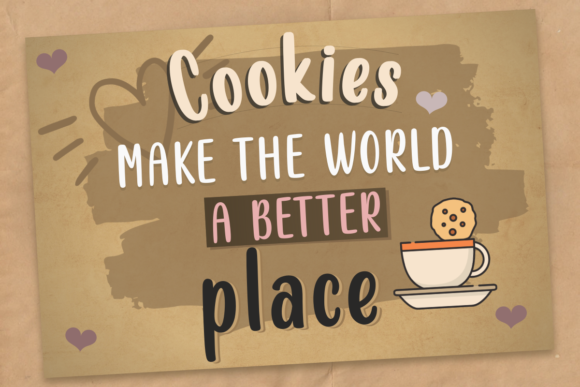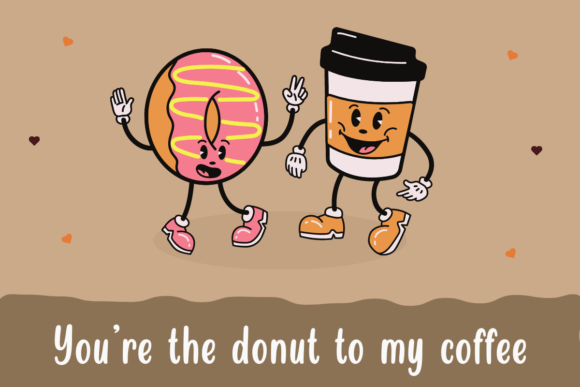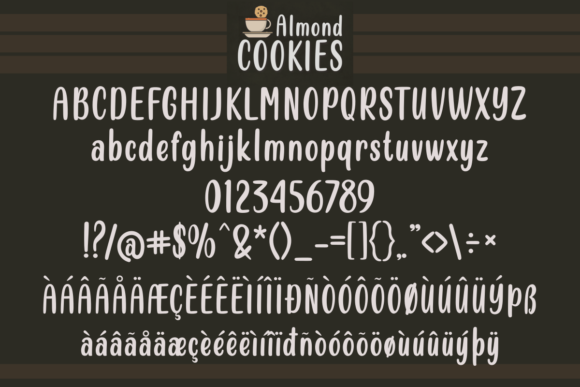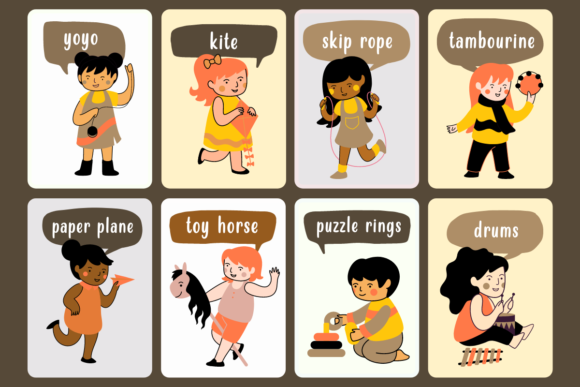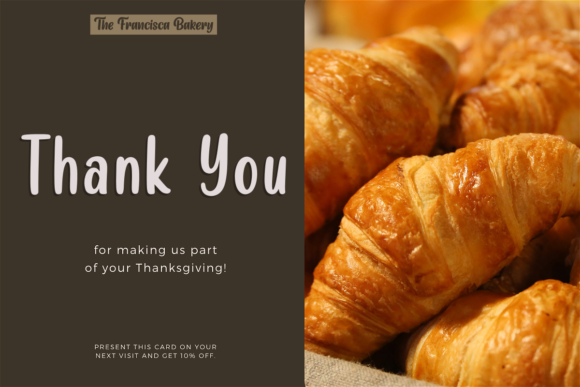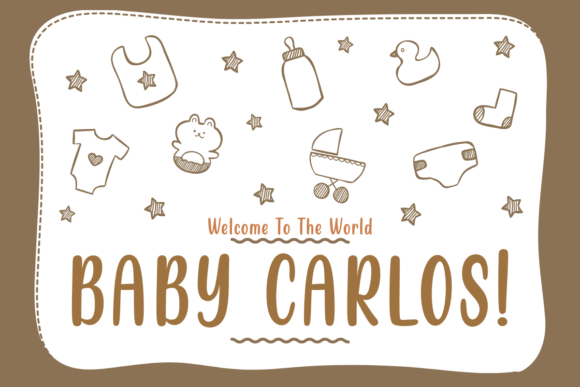
Introducing Almond Cookies Font: The Perfect Choice for Fun and Creative Projects
Are you looking for a font that embodies playfulness and authenticity? Look no further than Almond Cookies Font! This cute and colorful display font is perfect for any children’s activity or school project that requires a fun and creative touch. In this article, we’ll take a closer look at Almond Cookies Font, its features, and how you can use it to add a personal touch to your designs.
What is Almond Cookies Font?
Almond Cookies Font is a display font designed to bring a smile to your face. Its playful and colorful design makes it perfect for use in children’s books, school projects, and any other creative endeavor that requires a fun and youthful touch. The font is carefully crafted to ensure that it is easy to read and understand, making it suitable for use in a variety of applications.
Features of Almond Cookies Font
So, what makes Almond Cookies Font so special? Here are just a few of its key features:
- Playful Design: Almond Cookies Font features a playful design that is sure to capture the attention of your audience. Its colorful and fun letters are perfect for use in children’s activity sheets, school projects, and other creative endeavors.
- Easy to Read: Despite its playful design, Almond Cookies Font is easy to read and understand. This makes it suitable for use in a variety of applications, from children’s books to educational materials.
- Authentic Feel: Almond Cookies Font has an authentic feel that is sure to resonate with your audience. Its unique design ensures that your text stands out from the crowd and adds a personal touch to your designs.
- Versatile: Almond Cookies Font is versatile and can be used in a variety of applications, from digital designs to print materials.
How to Use Almond Cookies Font
Using Almond Cookies Font is easy! Here are a few tips to get you started:
- Pair it with Other Fonts: Almond Cookies Font pairs well with other fonts, making it easy to create visually appealing designs. Try pairing it with a sans-serif font for a fun and modern look.
- Use it in Children’s Activity Sheets: Almond Cookies Font is perfect for use in children’s activity sheets, such as coloring pages, puzzles, and games.
- Add it to Your School Projects: Almond Cookies Font is also great for school projects, such as posters, presentations, and reports.
- Experiment with Colors: Almond Cookies Font comes in a variety of colors, so don’t be afraid to experiment and find the perfect color for your design.
Why Designers and Crafters Love Almond Cookies Font
Designers and crafters love Almond Cookies Font for a variety of reasons. Here are just a few:
- Unique Design: Almond Cookies Font features a unique design that sets it apart from other fonts. Its playful and colorful letters are sure to capture the attention of your audience.
- Versatility: Almond Cookies Font is versatile and can be used in a variety of applications, from digital designs to print materials.
- Fun and Creative: Almond Cookies Font is perfect for designers and crafters who love to have fun and be creative. Its playful design ensures that your text stands out from the crowd and adds a personal touch to your designs.
| Font Name | Almond Cookies Font |
| Author | Deedeetype |
In conclusion, Almond Cookies Font is a cute and colorful display font that embodies playfulness and authenticity. Its unique design makes it perfect for use in children’s activity sheets, school projects, and any other creative endeavor that requires a fun and youthful touch. With its ease of use, versatility, and fun design, Almond Cookies Font is sure to become a favorite among designers and crafters.